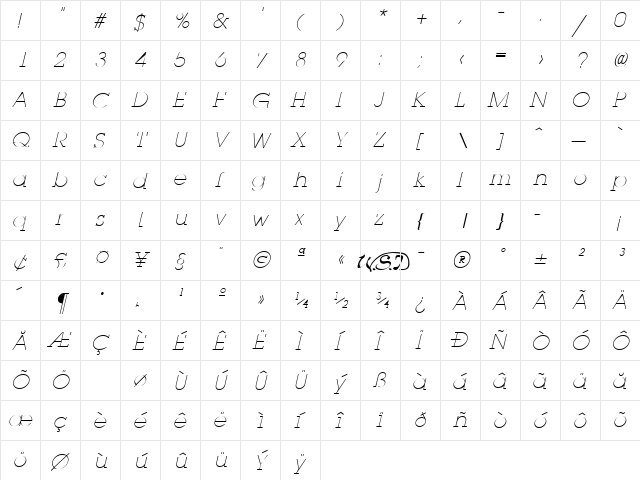
Lapland Light Italic Font Preview
Design Context for Lapland Light Typeface
Lapland Light offers clean, dependable letterforms without strong stylistic allegiance, making it a practical choice for designers who need flexibility. The slanted form adds forward momentum and visual energy. The delicate stroke weight brings airiness and refinement to layouts.
Pro Tip: Try Lapland Light for annotation and caption copy alongside an upright companion — the contrast in angle creates a dynamic but ordered typographic system.